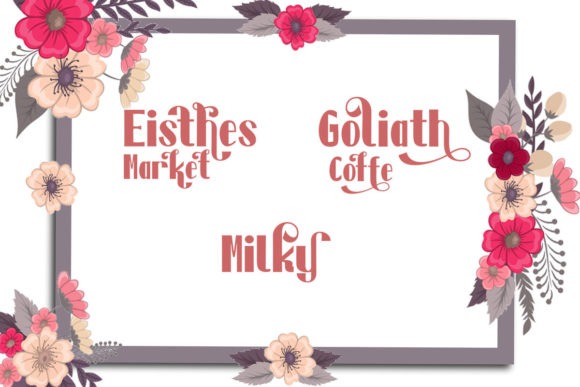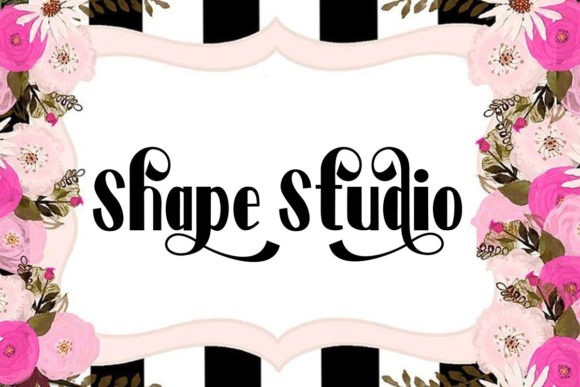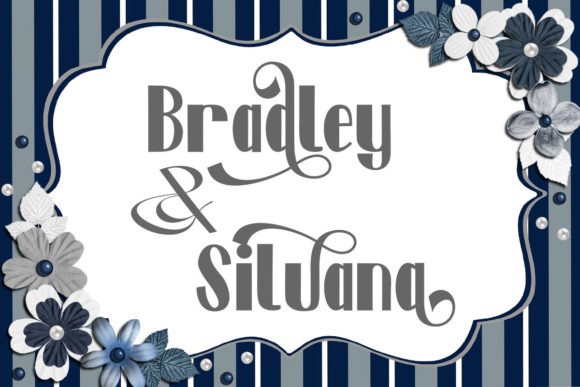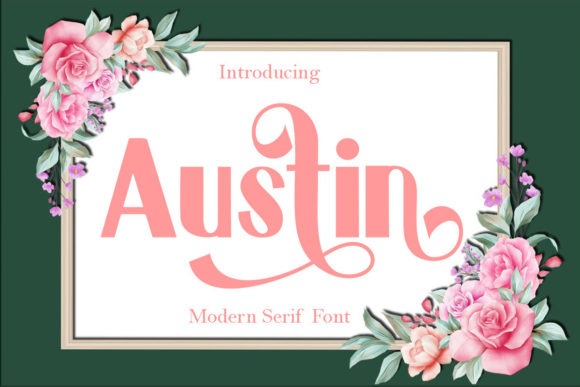
Austin Sans Serif Font is amodern sans serif typeface created by Shape Studio with simple, clean, and visual elegance. It is PUA encoded which means you can access all glyphs and swashes with ease! Add it confidently to your favorite creations and let yourself be amazed by the outcome generated.